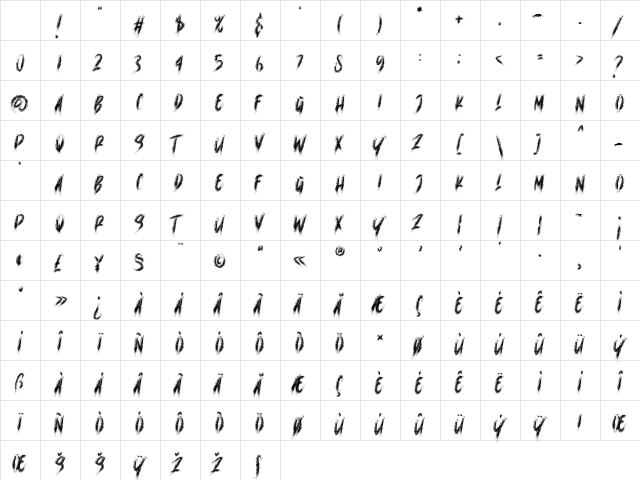
Complete Horrible Brush Regular glyph index. Displaying only characters natively supported by Horrible Brush Regular font.
Horrible Brush flows with the natural rhythm of handwritten lettering, making it ideal for designs that call for warmth and personal expression.
Font Pairing: Combine Horrible Brush with a simple geometric sans for maximum contrast - the tension between flowing curves and clean structure is a classic typographic pairing.
Pro Tip: Use Horrible Brush for short runs of text - names, titles, or taglines. Extended body copy in script faces tires the eye quickly.